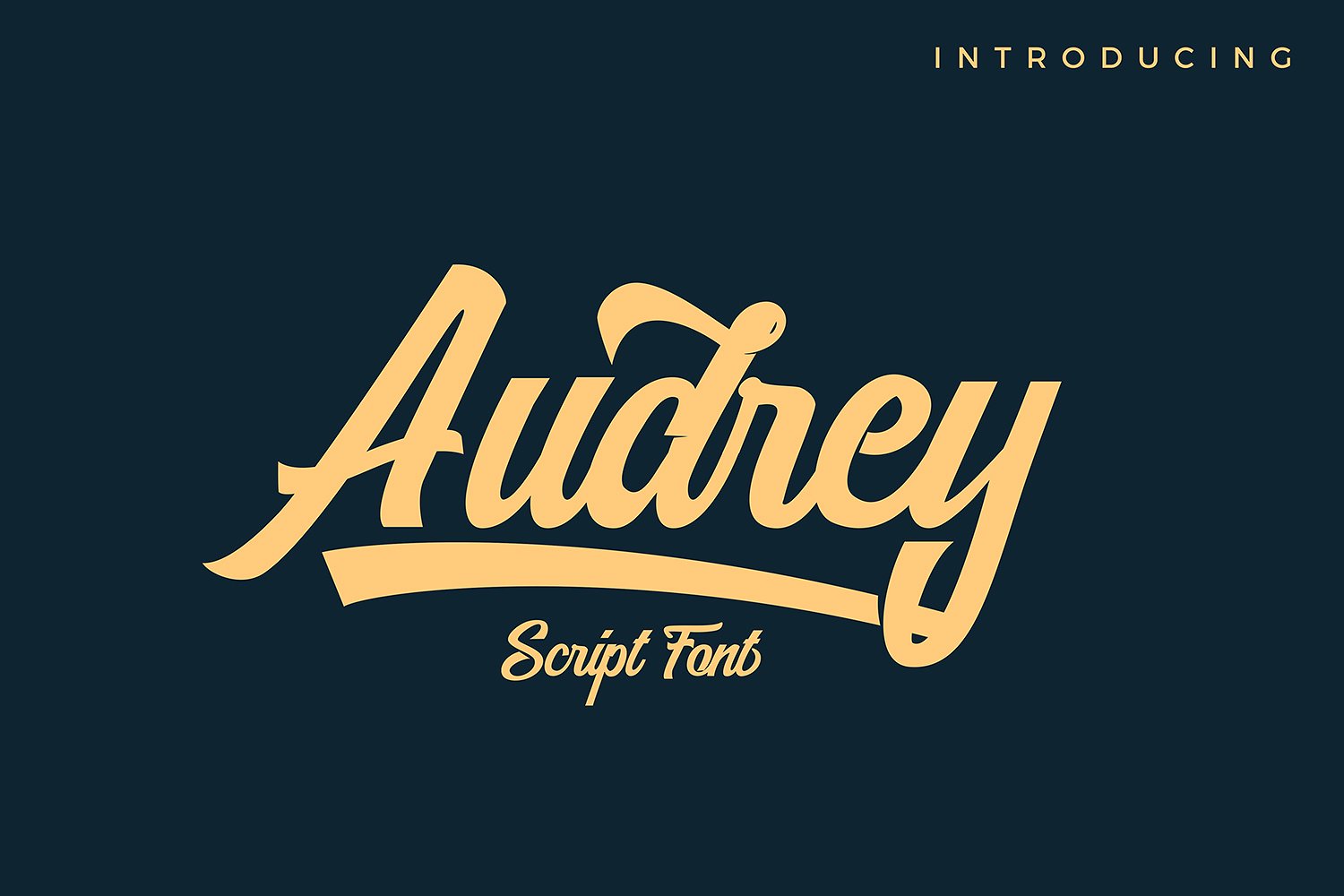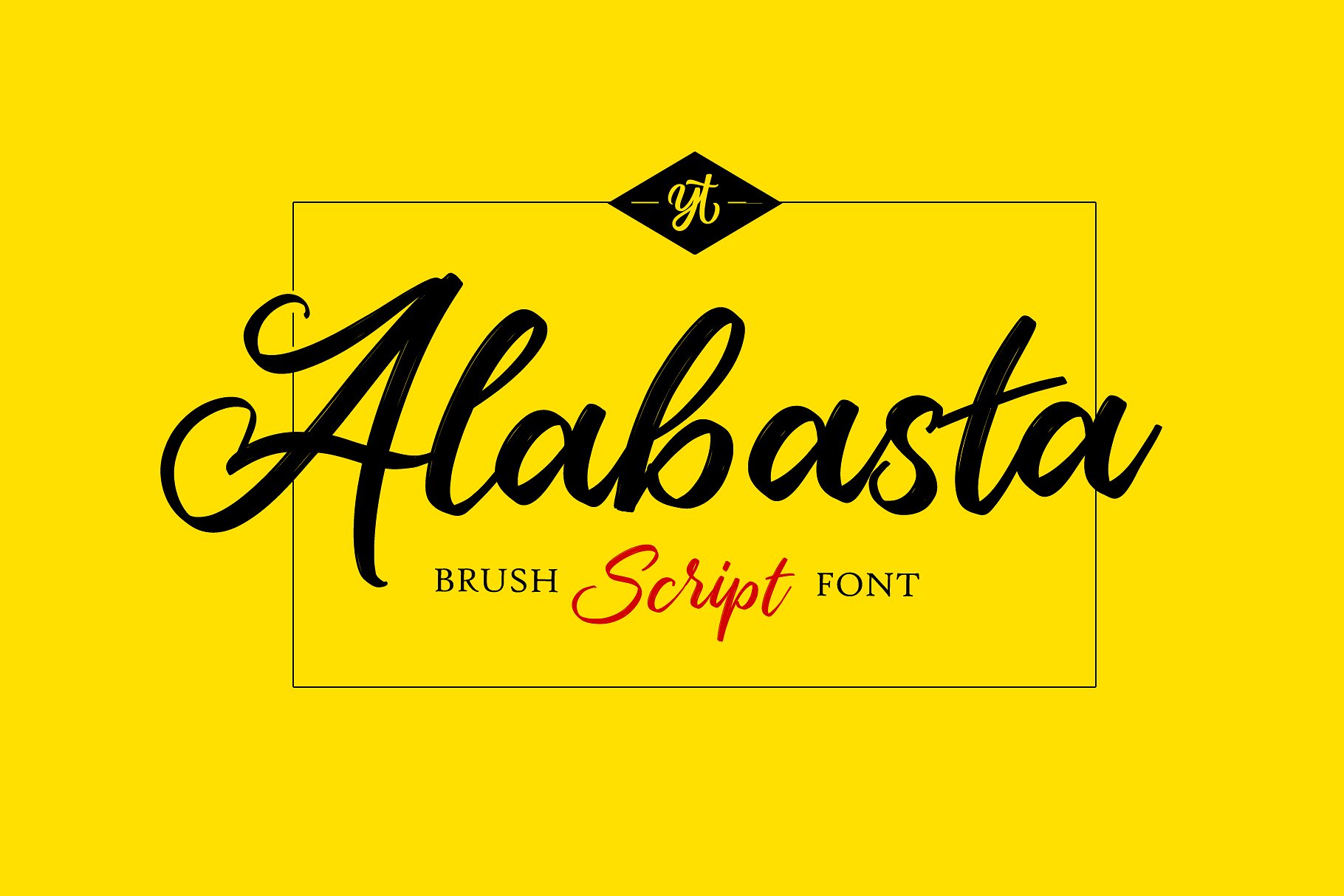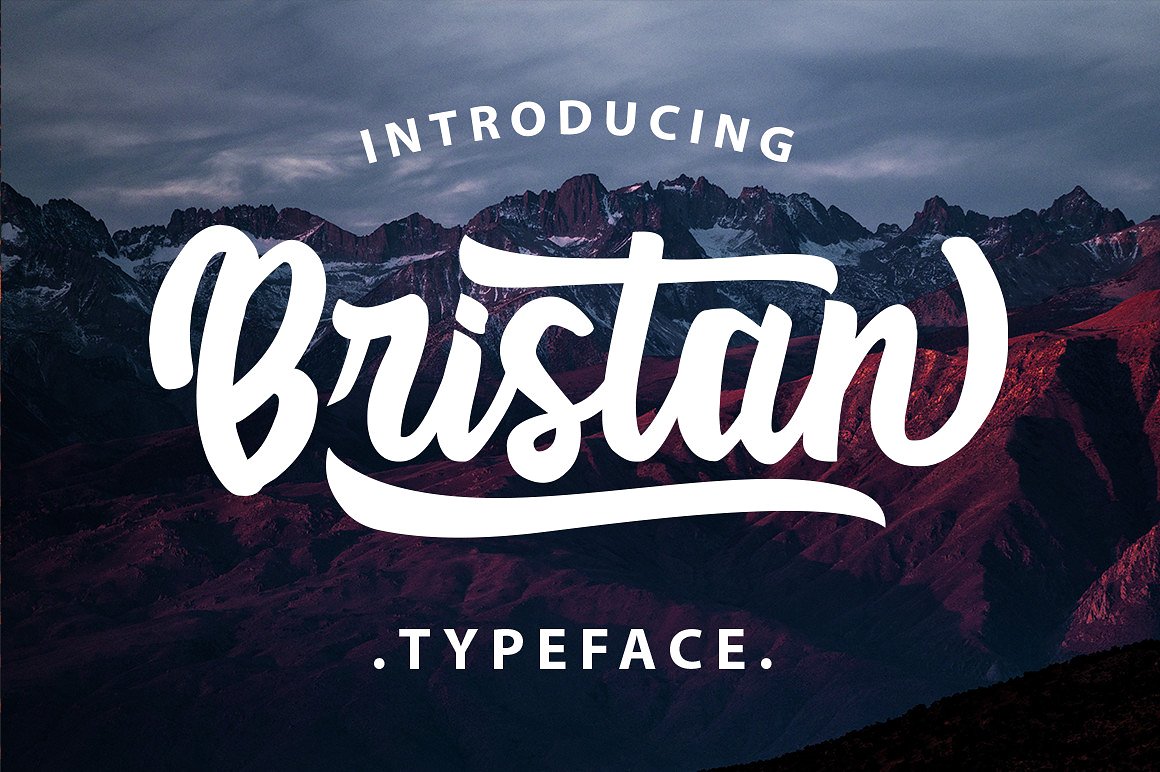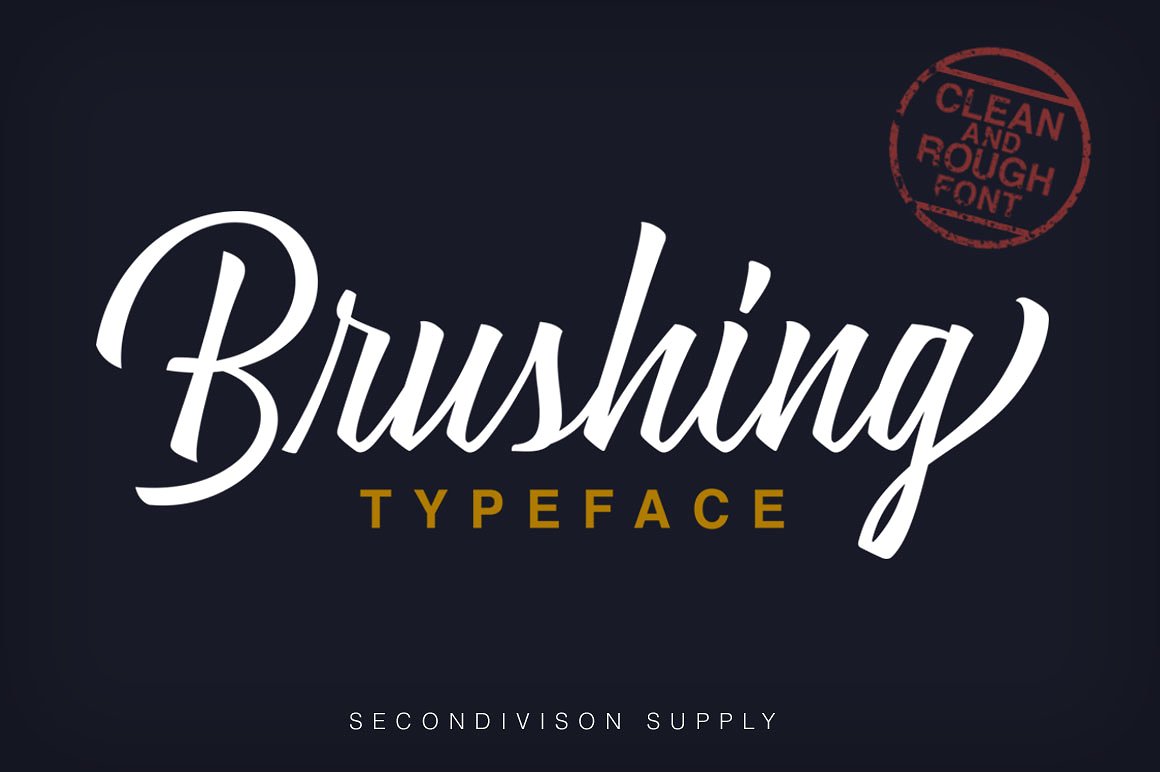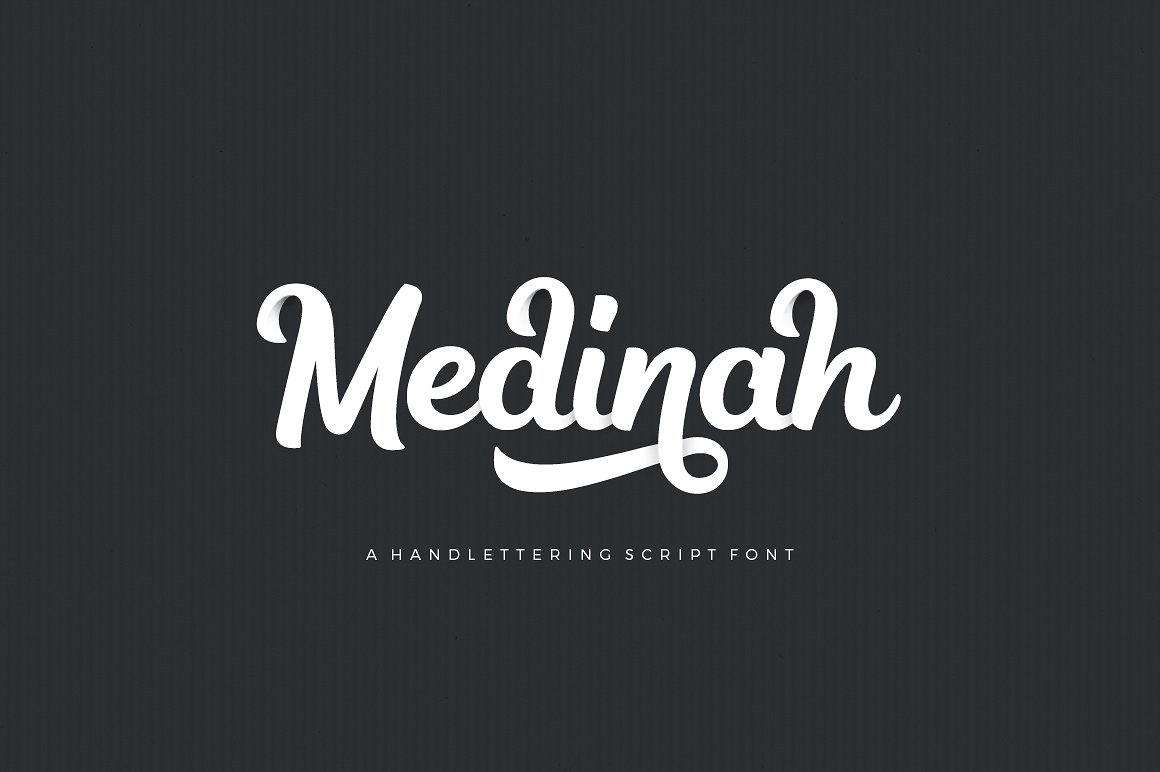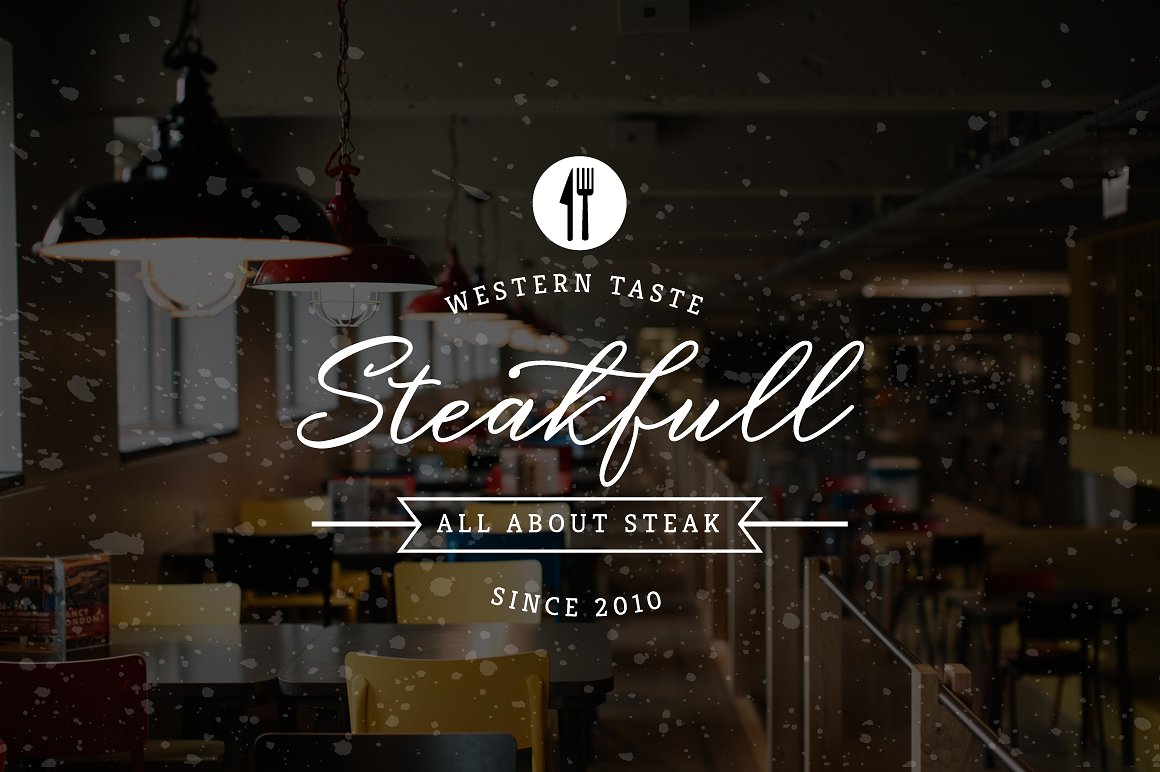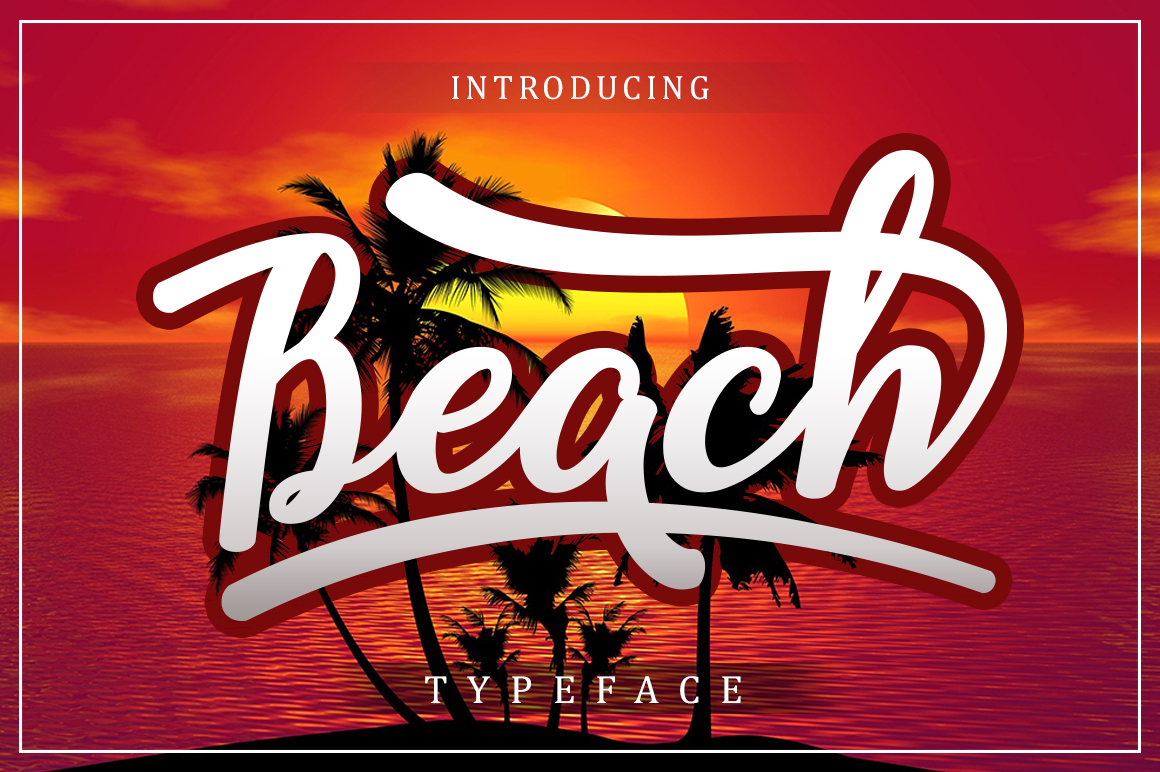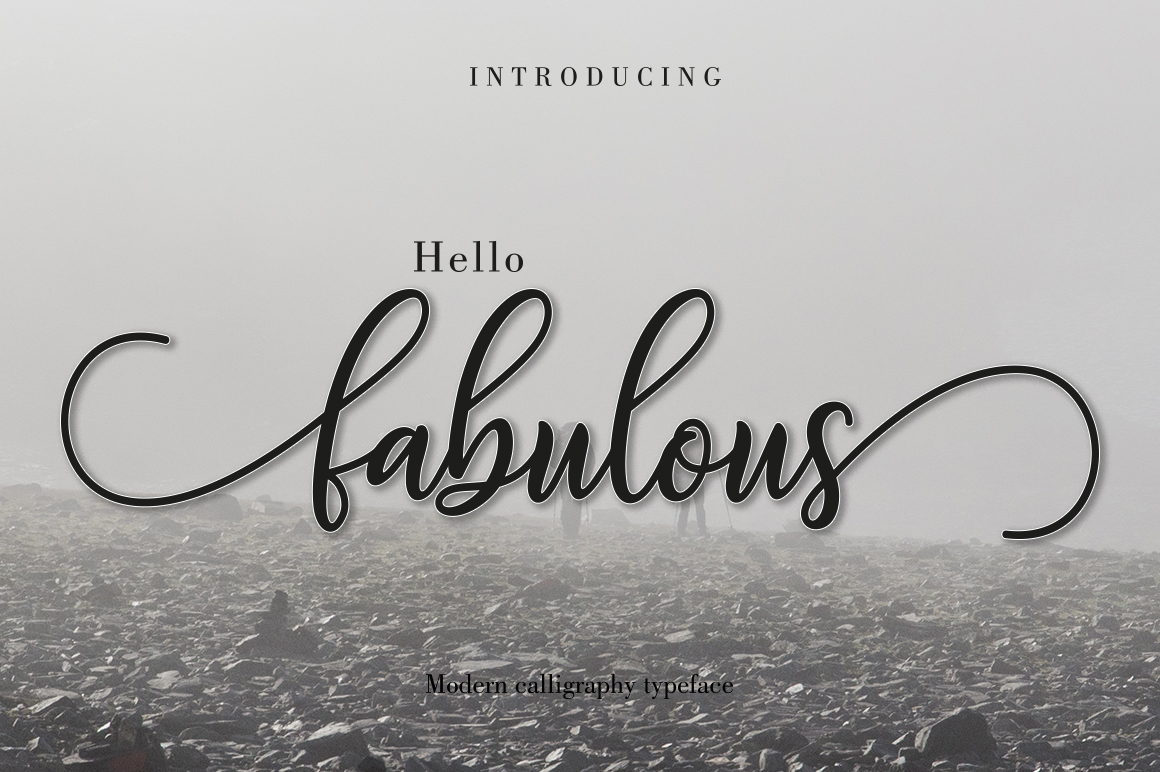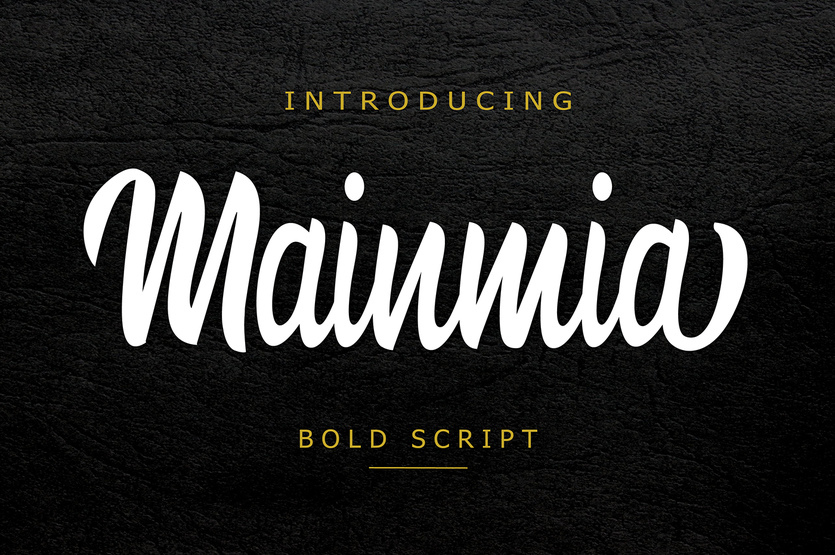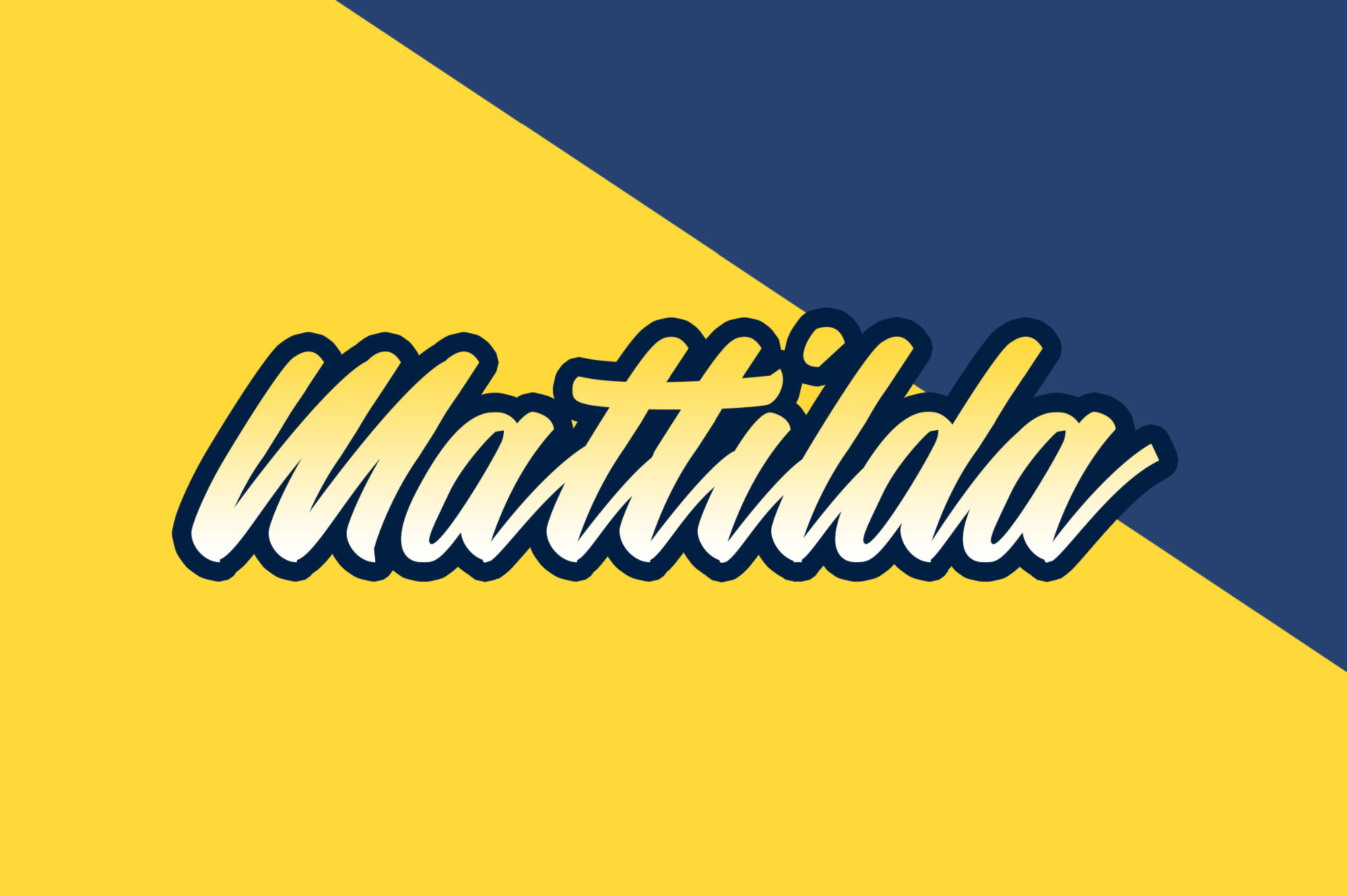
Elegant Script Fonts for Logo Design & Beautiful Lettering Projects (21 Fonts)
Cool script fonts can be perfect for logo design, hand lettering projects, greeting cards, typography logotypes, badges, unique invitations, stamps, branding and more.
The script typefaces adds marvelous effect to your brand design. It can be using together with other kind of fonts.
In this post we are sharing some of the best free and premium script fonts for logo design & typography projects. Have a nice time and enjoy!
DieCunst Free Font
Risthi Free Font
Brushing Typeface
Brushing Typeface are clean and rough style font, inspired by brush lettering. You can use Brushing for your logo design, poster design, T-Shirt design, branding, badge, name card, etc. This font have many alternates characters, so you can combine Brushing regular characters with Brushing alternates character for your design.
Kaylar Script & Serif is a pair of elegant typeface consist of script and serif font. The beauty script and the condensed serif perfectly matched and bring a luxury and classy feel. What makes it even more special is its unique opentype feature which allows you to enable the swash ornament in a very simple way.
Introducing Oraqle Script, a brush lettering font from Union Hands that features bold strokes and authentic brush texture that will make your design stand out. Oraqle Script also has impressive movement with clean look. You can use it for all your needs, such as a logos, printed quotes, badges, insignias, packaging, headlines, posters, t-shirts/apparels, greeting cards, and wedding invitations, & etc.
Pristine typeface is a fully developed script font built up of letters, numerals and various glyphs. It is a handwriting style modern and italic typographic project crafted and provided by G. Senzana; one of our best typographers.
Mattilda is a script handletter font; includes uppercase letters, lowercase letters, Numerals & glyphs.
Viana script is our latest handwriting calligraphic typeface; crafted with attention to be suitable for headings, badges, editorial, print and branding.
Introducing Alabasta script font which has a elegant hand lettering brush style. So it looks natural like a handmade. This font is best used for your design project that has the concept of fun, girly, romantic and elegant. Can also be applied to the design of a logotype, header website, wedding logo, romantic design, make some lettering a quote, t-shirt design etc.
Mountiane is a dashing script typeface perfect for design and craft work.
Fabulous script come with 350+ glyphs. The alternative characters were divided into several Open Type features such as Swash, Stylistic Sets, Stylistic Alternates, Contextual Alternates. The Open Type features can be accessed by using Open Type savvy programs such as Adobe Illustrator, Adobe InDesign, Adobe Photoshop Corel Draw X version, And Microsoft Word. And this Font has given PUA unicode (specially coded fonts). so that all the alternate characters can easily be accessed in full by a craftsman or designer.
Medinah is a handlettering script font. Medinah a very good for logotype, letterhead, poster, apparel design, label, website header, fashion design, name tag, quotes, t-shirts, packaging and any more.
Info / Download SourceBeach Free Font
Beach Script a new fresh & modern script with a handmade calligraphy style, decorative characters and a dancing baseline! So beautiful on invitation like greeting cards, branding materials, business cards, quotes, posters, and more!!
Beach Script come with 200 + glyphs. The alternative characters were divided into several Open Type features such as Swash, Stylistic Sets, Stylistic Alternates, Contextual Alternates.
Mainmia Free Bold Script
Rachella Script Free Typeface
This free font can finish your design projects quickly. I create this free font to help you use a quality design font with commercial use license.
Download SourceBristan Typeface
Bristan Typeface is script typeface. Bristan Typeface a beautiful for wedding card design, logotype, website header, fashion design and any more. It contains a full set of lower & uppercase letters, a large range of punctuation, numerals, and multilingual support.
Info / Download SourceAudrey Script Font
Introducing Audrey. A bold script font that inspired by hand lettering stylistic with sporty personality. Is designed using typography principles. Audrey has pretty much alternatives glyphs choice in the pack.
Audrey font really perfect for creative project such as logo, T-shirt / apparel, badge, invitation, packaging,headline, poster, magazine, greeting card, and wedding invitation.
This free font can finish your design projects quickly. I create this free font to help you use a quality design font with commercial use license.
Narmada Typeface
Narmada Typeface is a modern script typeface. You can use it as a logo,logotype, badge, sign, packaging, headline, poster, t-shirt/apparel, greeting card, and another product. The flowing characters are ideal to make an attractive messages, mix and match Narmada with a bunch of alternative characters to fit your project.